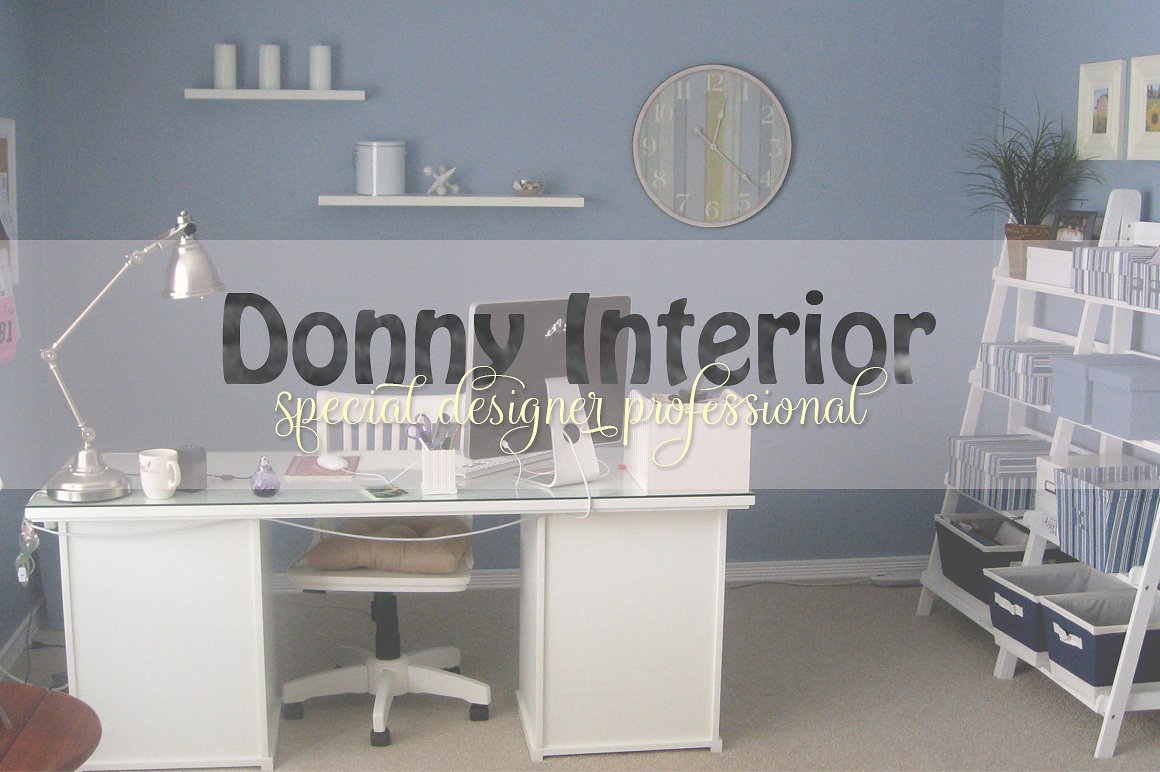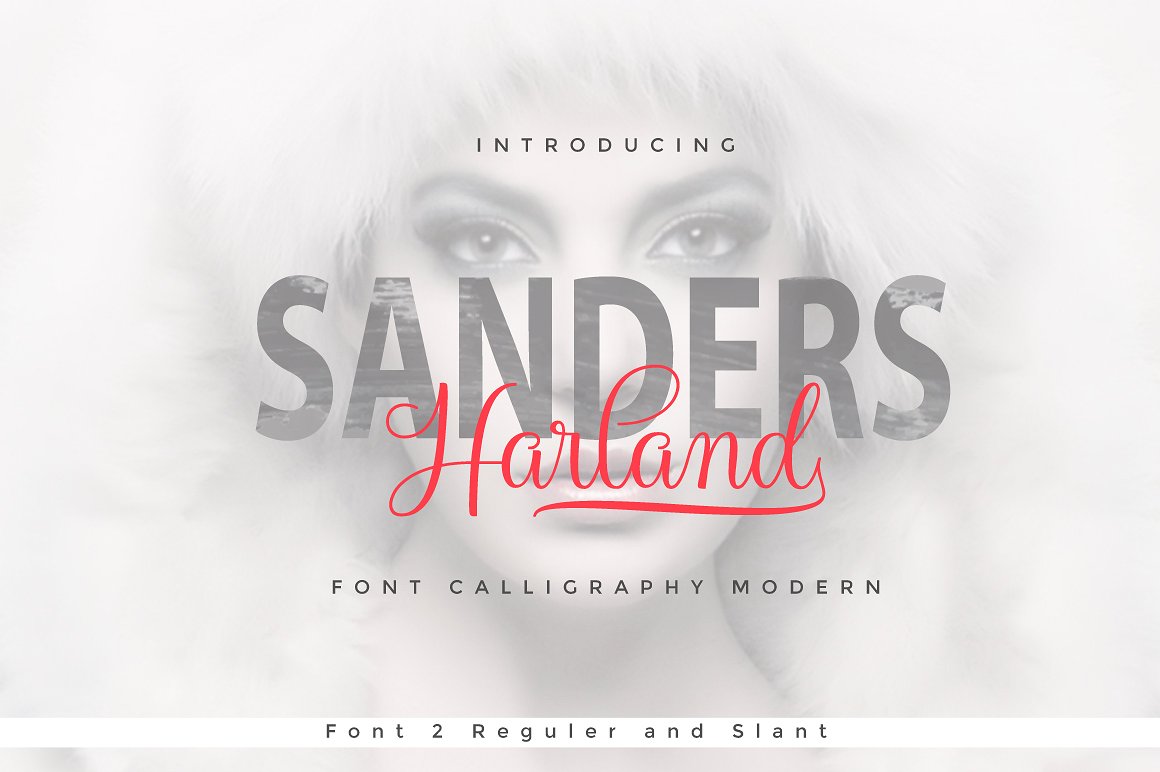
Harland Calligraphy
Harland Script a new fresh & modern script with a handmade calligraphy style, decorative characters and a dancing baseline! So beautiful on invitation like greeting cards, branding materials, business cards, quotes, posters, and more!!